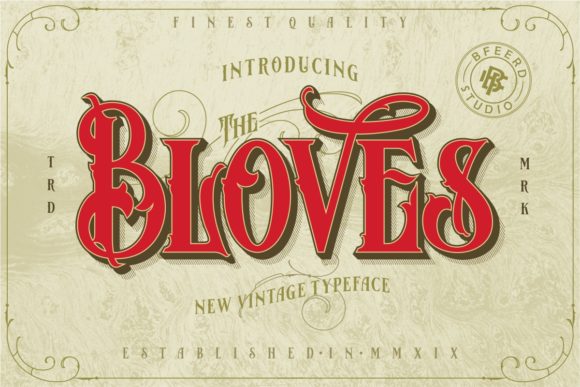
Bloves Font
Bloves Font is perfect for romantic wedding invitations, love-themed greeting cards, Valentine's Day campaigns, romantic restaurant branding, couple photography studios, dating app interfaces, heartfelt marketing materials, intimate spa services, romantic jewelry packaging, and authentic relationship-focused communications.
What makes Bloves Font exciting is its heartfelt romance that captures the tender emotions of love and intimate connection through lovingly crafted letterforms. This affectionate typeface combines romantic elegance with warm accessibility, creating a personality that communicates love, tenderness, and genuine emotional connection. The font's romantic character and loving appeal make it perfect for brands celebrating relationships, romance, and the beautiful emotions that connect hearts in meaningful ways.
The Bloves Font family includes Regular, Bold, Light, Medium, Romantic, Loving, Condensed, and Heartfelt variants. Each weight maintains the font's romantic character while providing comprehensive typographic flexibility for love-themed brand identity systems and romantic design applications across diverse relationship platforms.
Whether you're developing romantic brand identities, creating Valentine's marketing materials, designing wedding stationery, or building relationship-focused campaigns, Bloves Font delivers unmatched romantic appeal and loving sophistication. Its heartfelt presence makes it perfect for wedding planners, romantic restaurants, couple therapists, and love-focused businesses seeking authentic romantic representation.
The font's tender proportions and loving details create an intimate reading experience that celebrates the beauty of human connection and romantic love. Each letterform has been carefully crafted to convey warmth, affection, and emotional depth that resonates with audiences seeking genuine romantic experiences and meaningful relationships.
This versatile typeface excels in romantic environments, offering designers the tenderness needed for comprehensive love brand communication strategies. The extensive character set includes romantic alternates, loving ligatures, and heart symbols for relationship market positioning and romantic brand storytelling.
Embrace the power of loving design that celebrates romantic connection and authentic heartfelt emotions.